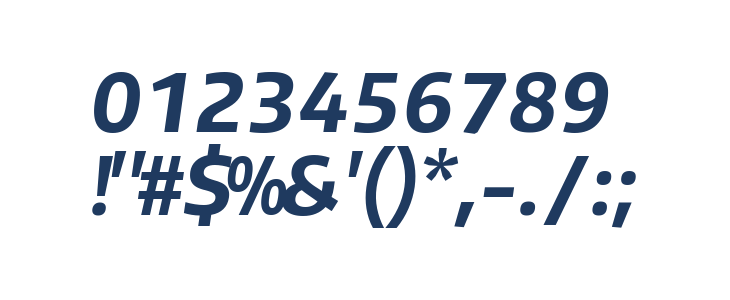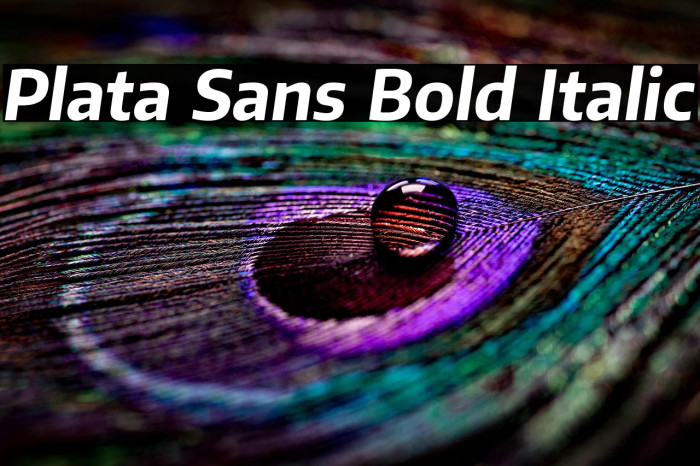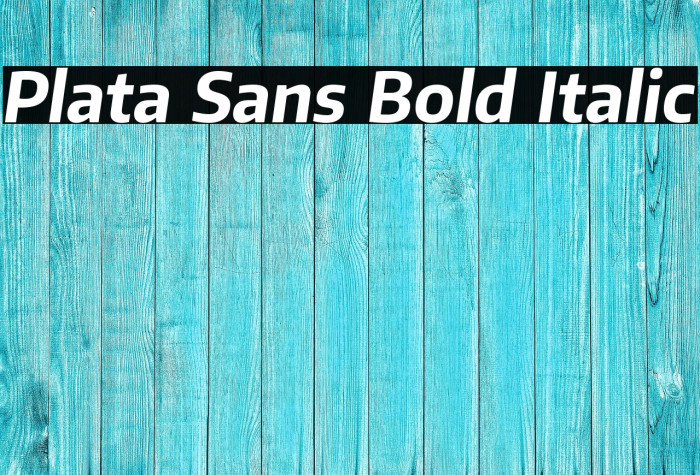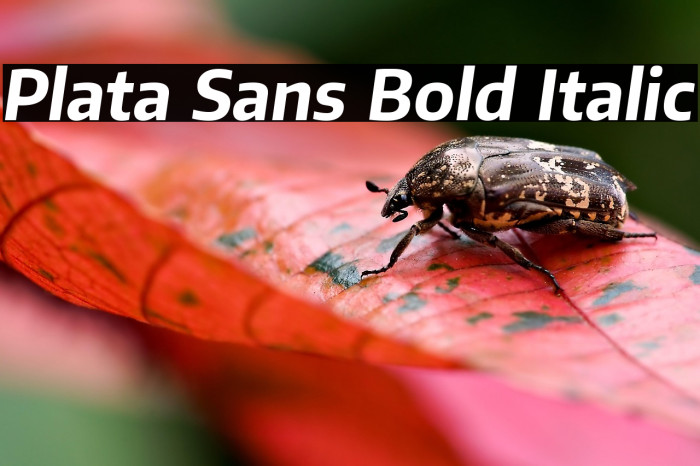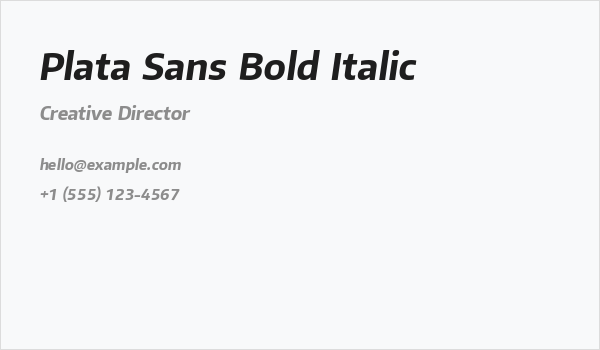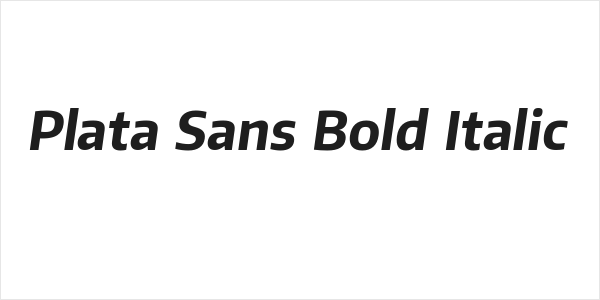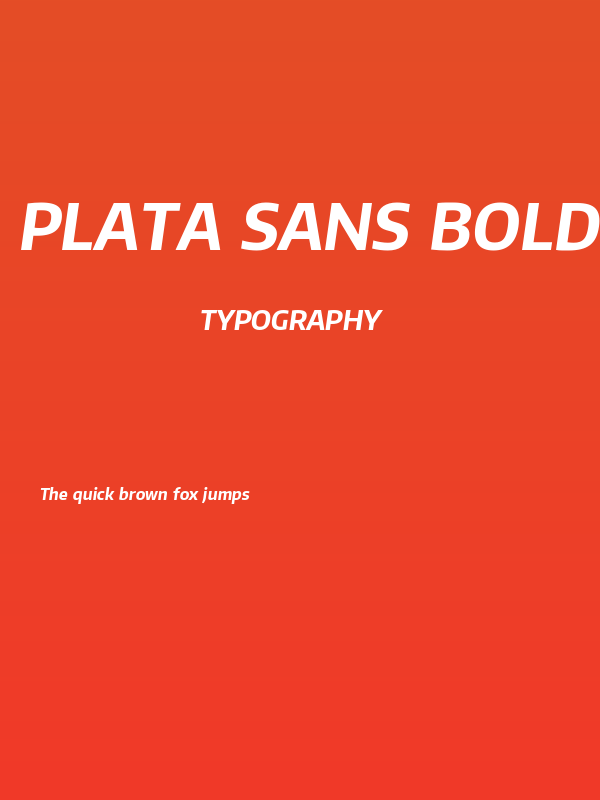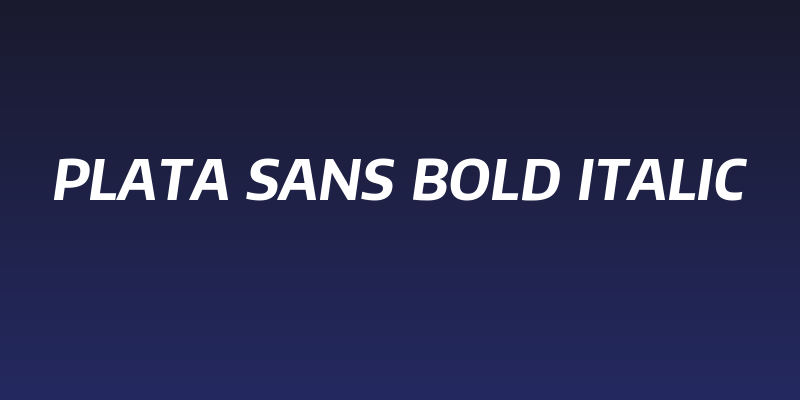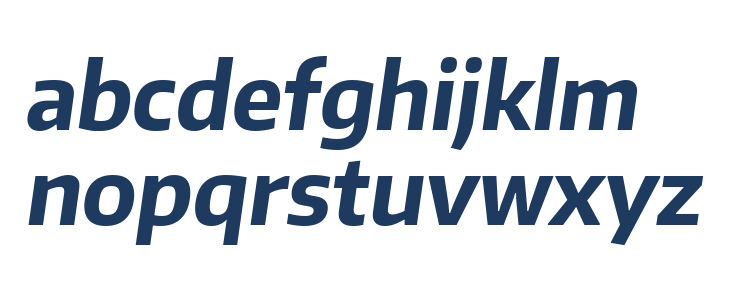
Plata Sans Bold Italic Font
Plata Sans Bold Italic Description
This font exhibits a bold and italicized style, characterized by its clean and modern sans-serif design. The letters are slightly slanted, giving a dynamic and forward-moving appearance. The strokes are consistent in thickness, providing a uniform look across all characters. The uppercase and lowercase letters are well-proportioned, with a slight emphasis on the curves, especially noticeable in letters like 'a', 'e', and 'g'. The numerals are clear and distinct, ensuring readability. Special characters are designed to match the overall aesthetic, maintaining the same bold and italicized features. This font is versatile, suitable for various design needs where a modern and assertive look is desired.
| Proposed Projects | Ideal for branding, advertising, headlines, and digital content where a strong and modern presence is required. |